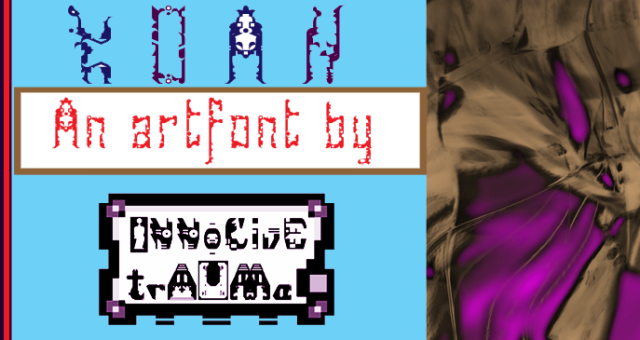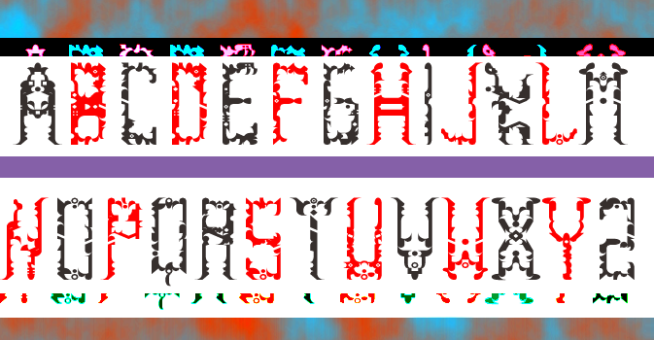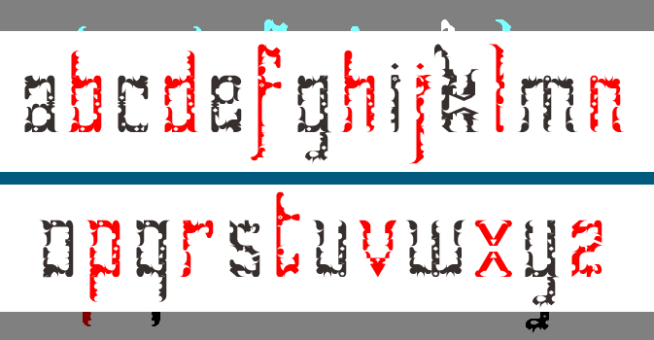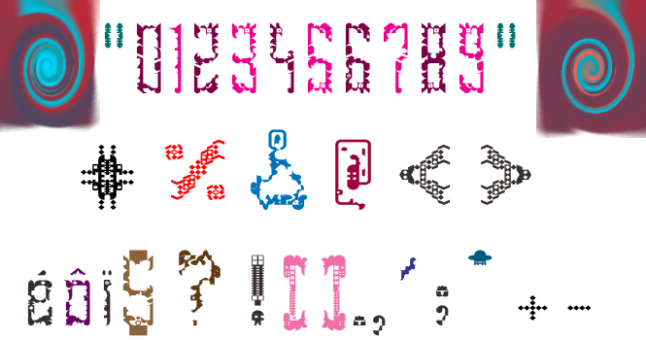
trAUMa 34 / Koan
"Koan", like all the "trAUMa" series, works at the frontier between Art & Type Design, Figuration & Abstraction, each font is a comprehensive world in which every glyph is a "living" entity. But put together they can produce your messages in the most accurate way.